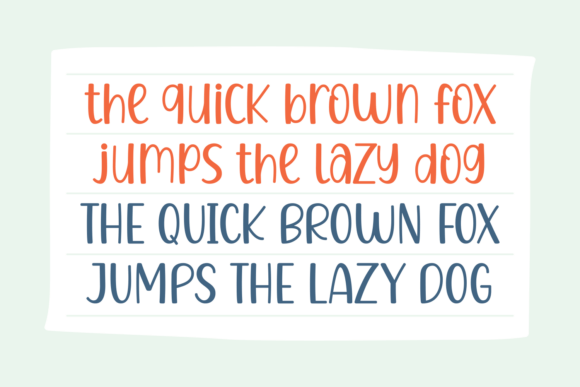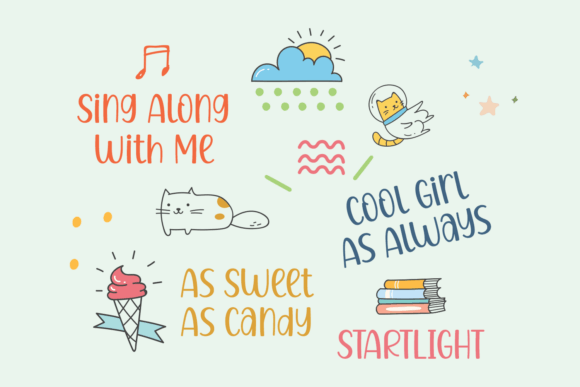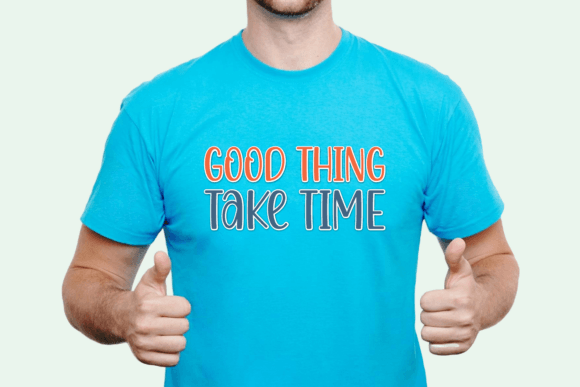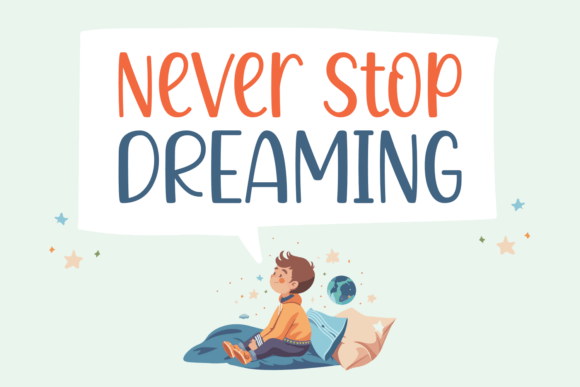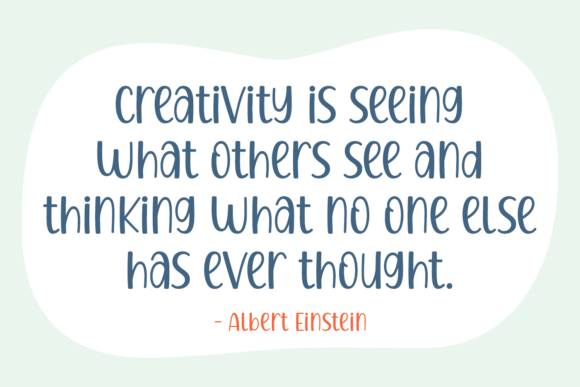
Introduction to Natural Reader Font
Natural Reader is a charming handwritten font that combines elegance and simplicity.
Its smooth curves and organic flow create a warm, personal touch, perfect for invitations, logos, and branding Versatile and stylish, it adds authenticity and sophistication to any design project.